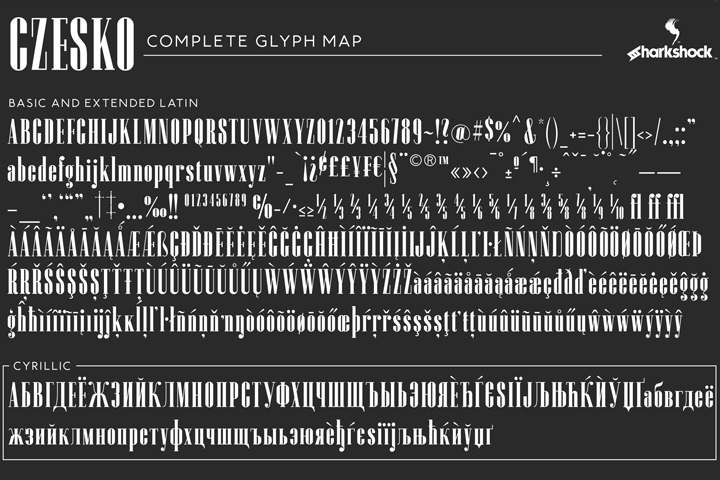
Czesko Font: Elevate Your Design with Timeless Elegance
Are you looking for a font that exudes luxury, sophistication, and elegance? Look no further than Czesko, a stunning display serif font that is sure to elevate your design to new heights. With its tall, dark, and handsome appearance, Czesko is the perfect choice for designers and crafters seeking to create a lasting impression.
A Timeless yet Elegant Design
Czesko’s design is characterized by its classic serif features, which have been carefully crafted to provide a timeless yet elegant look. The font’s tall and slender lines evoke a sense of luxury and sophistication, making it an ideal choice for high-end branding, fashion industry logos, and upscale publications. Whether you’re designing a luxury logo, a fashion magazine, or a movie poster, Czesko is sure to impress.
High Visibility at Smaller Sizes
One of the standout features of Czesko is its ability to maintain high visibility even at smaller sizes. This is achieved through the repetition of key features, which ensures contrast in line weight and provides excellent legibility. This makes Czesko an excellent choice for designers who need to work with limited workspace, such as in advertising or editorial design.
Vertical Emphasis and Tight Spacing
Czesko’s vertical emphasis and tight spacing make it an excellent choice for areas with limited workspace. The font’s vertical emphasis helps to create a sense of hierarchy and structure, while the tight spacing ensures that the text remains compact and easy to read. This makes Czesko perfect for use in tables, lists, or other applications where space is limited.
Luxury Logo and Branding Applications
Czesko is particularly well-suited for luxury logo and branding applications, especially in the fashion industry. The font’s elegant and sophisticated design makes it an excellent choice for high-end fashion brands, jewelry designers, and luxury goods manufacturers. Try using Czesko in all caps to create a truly stunning logo or brand identity.
Magazines and Movie Posters
In addition to its use in luxury branding, Czesko is also an excellent choice for magazines and movie posters. The font’s classic serif design and high visibility make it perfect for use in headlines, titles, and other display text. Whether you’re designing a fashion magazine or a movie poster, Czesko is sure to add a touch of elegance and sophistication to your design.
Comprehensive Character Set
Czesko comes with a comprehensive character set that includes Basic Latin, extended Latin, diacritics, Cyrillic, punctuation, fractions, ligatures, and kerning. This means that you’ll have everything you need to create beautiful and professional-looking text, without having to worry about character limitations.
Czesko is an excellent choice for designers and crafters who are looking to add a touch of elegance and sophistication to their work. Whether you’re a professional designer or a DIY crafter, Czesko’s ease of use and versatility make it an excellent addition to your font library.
In conclusion, Czesko is a stunning display serif font that is sure to elevate your design to new heights. With its timeless yet elegant design, high visibility at smaller sizes, and comprehensive character set, Czesko is the perfect choice for designers and crafters seeking to create a lasting impression. Try Czesko today and experience the power of elegant typography for yourself.